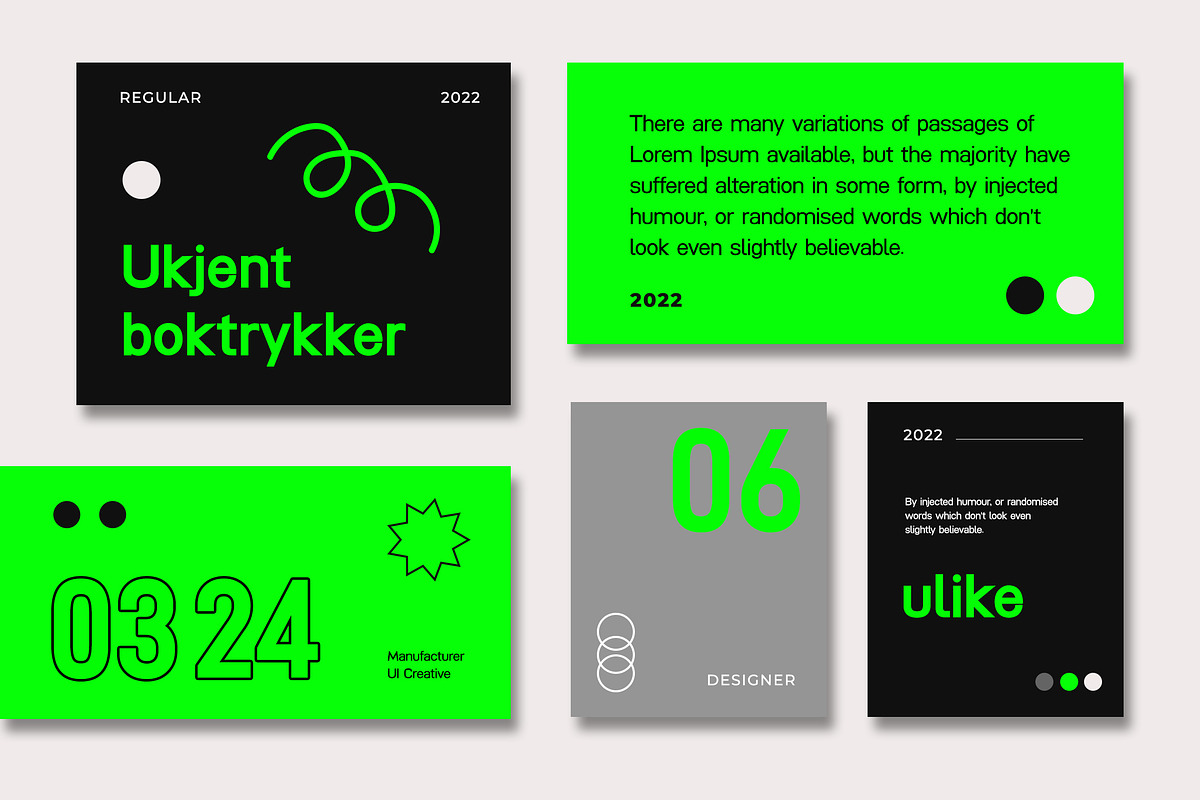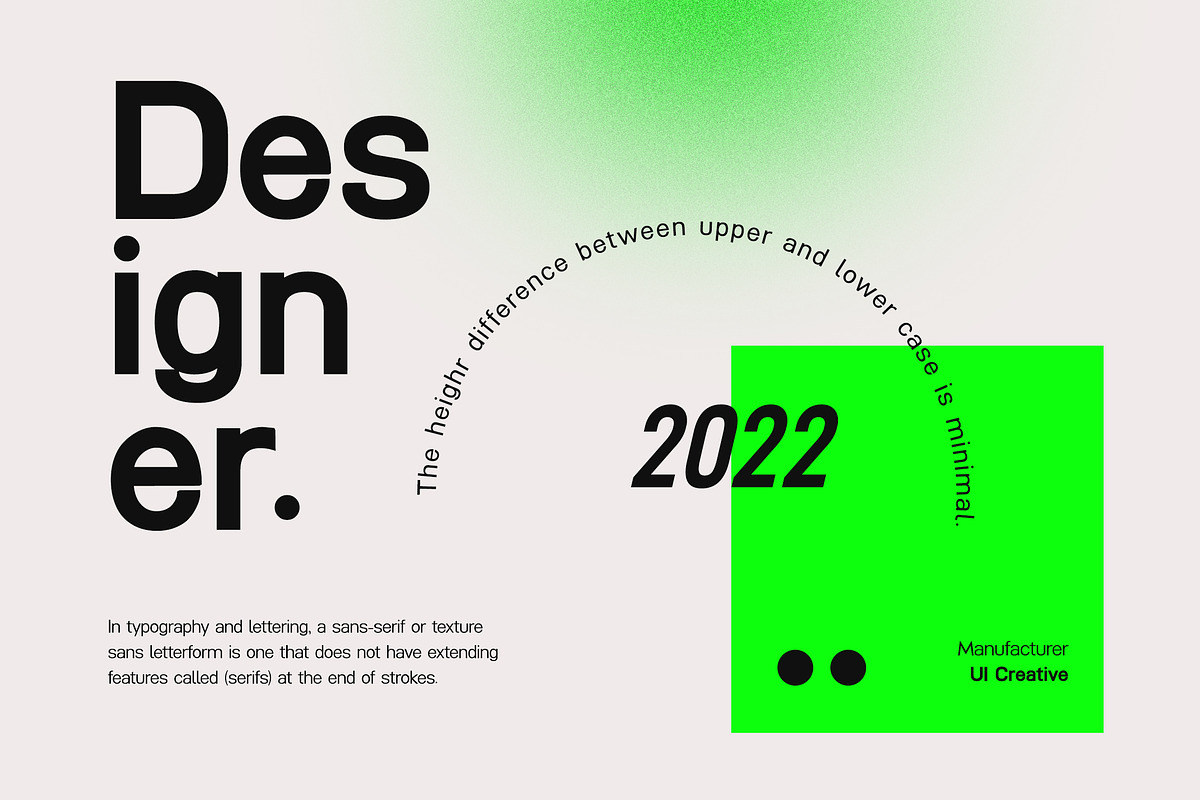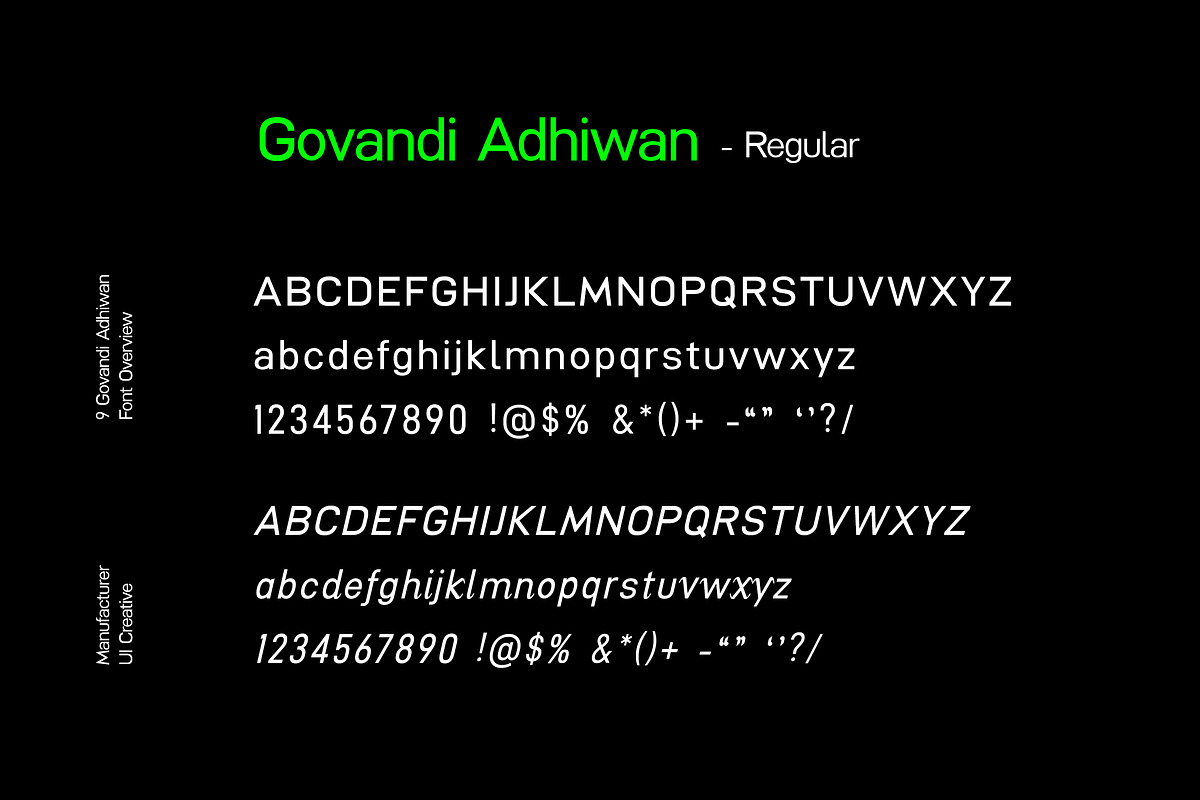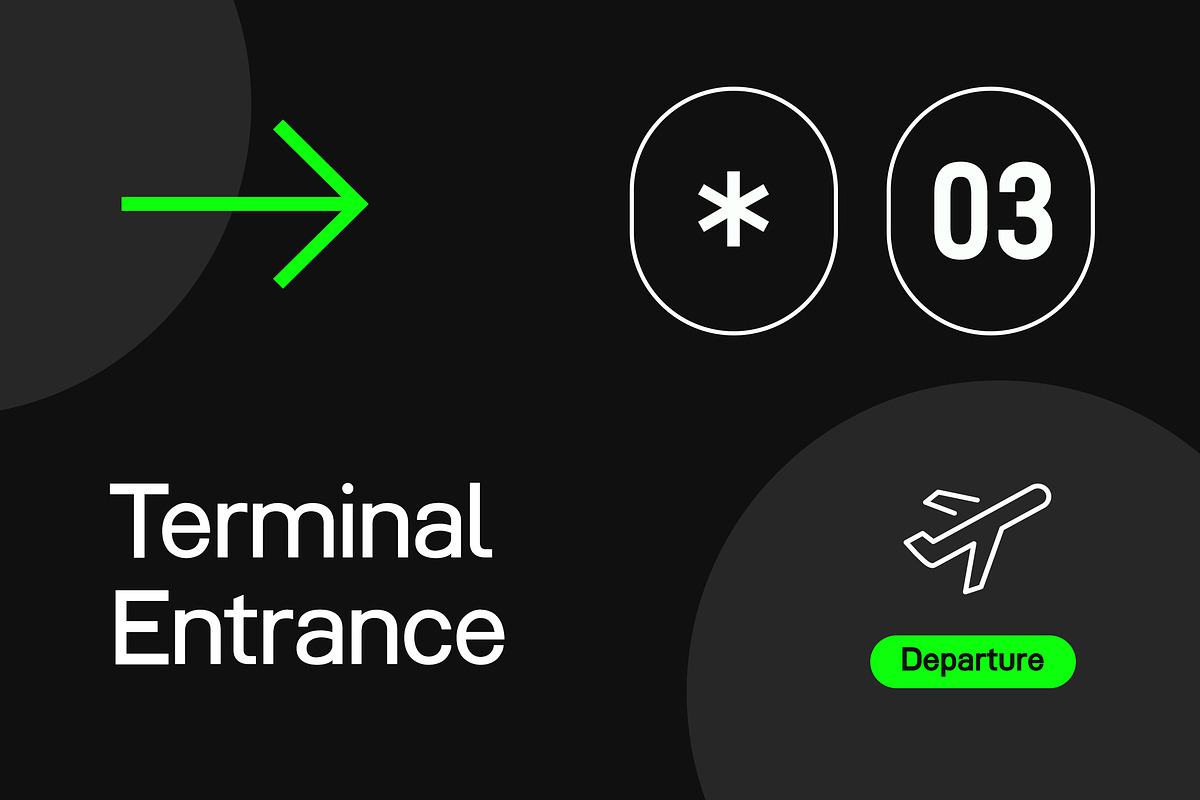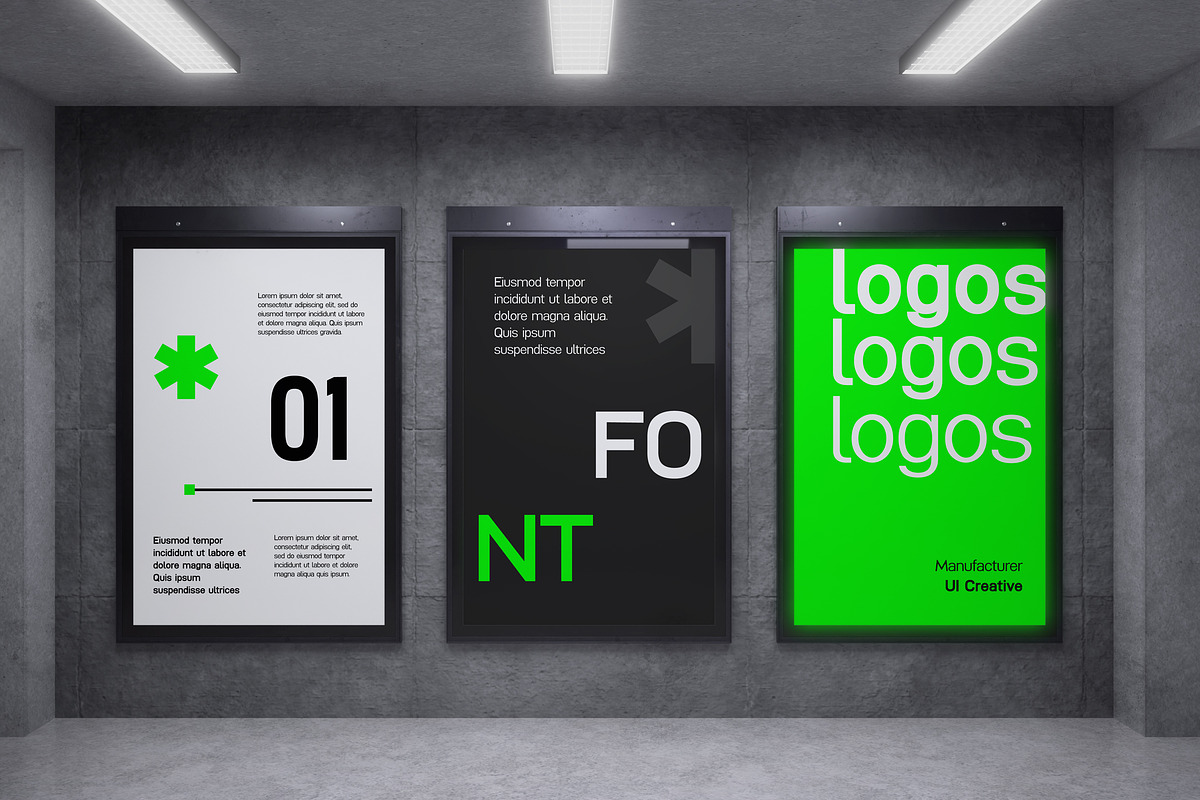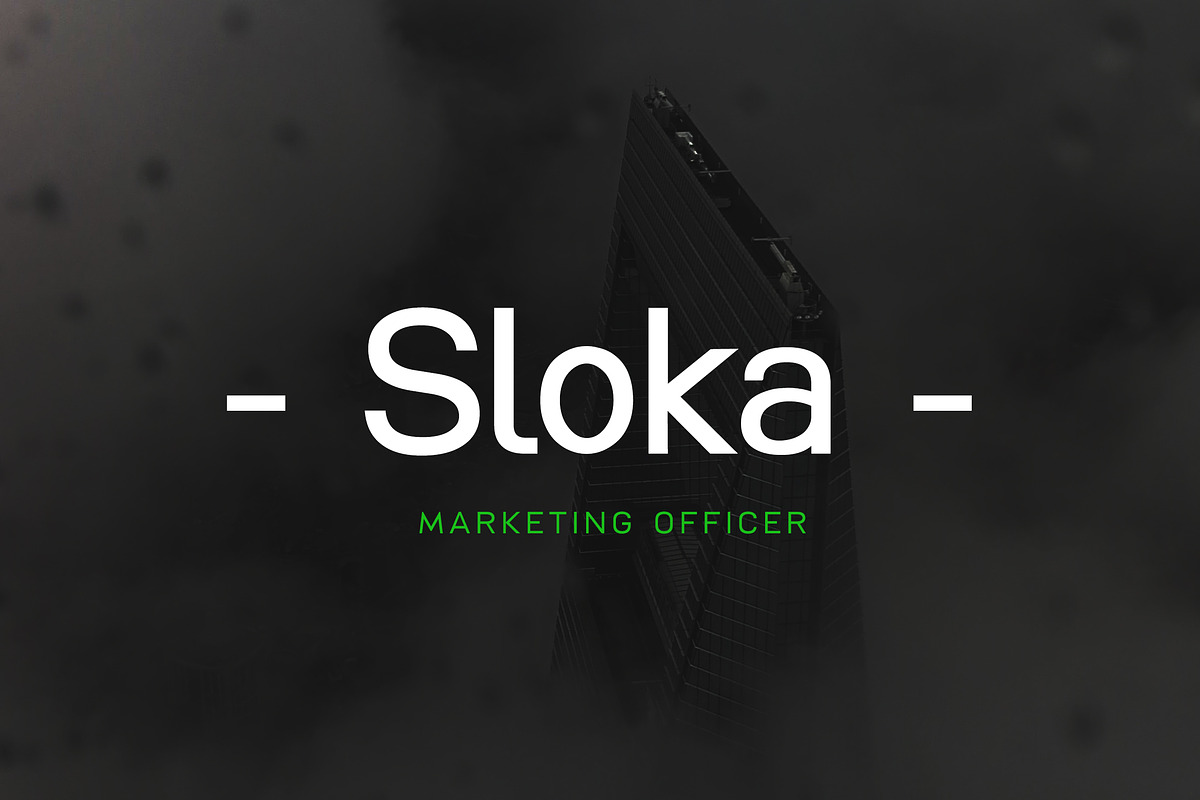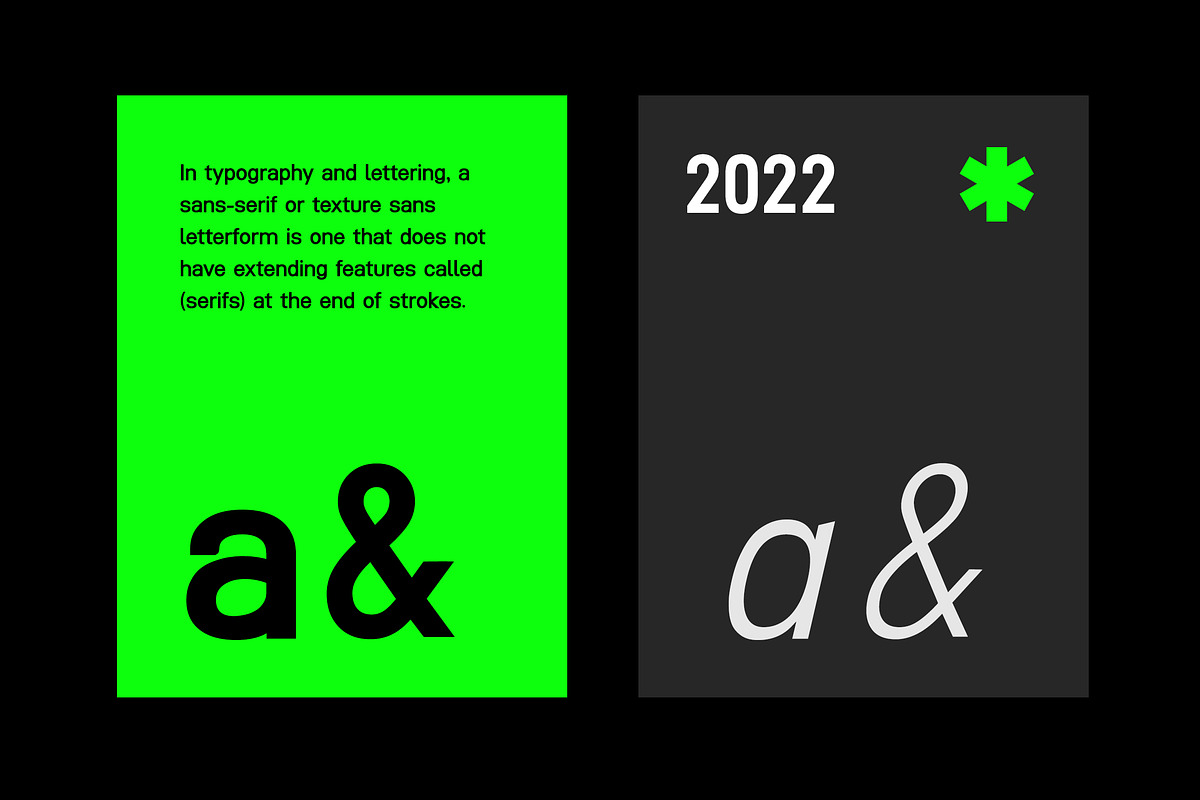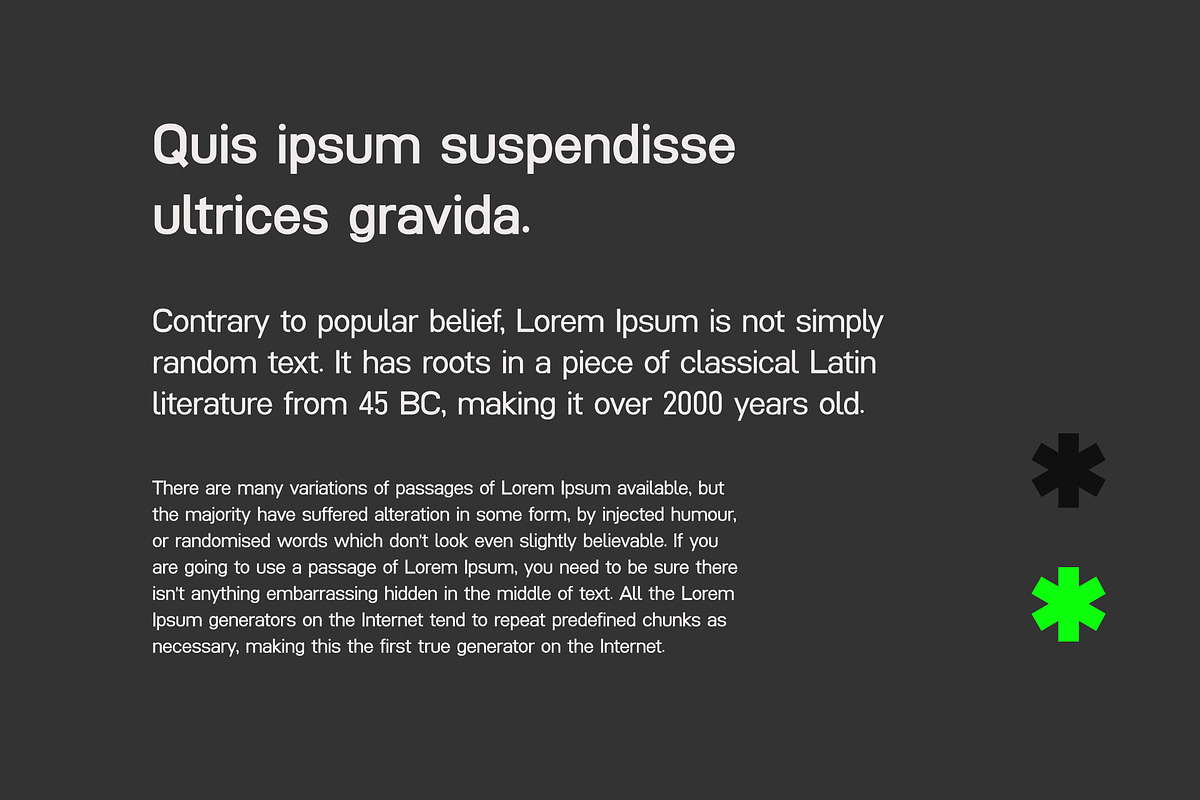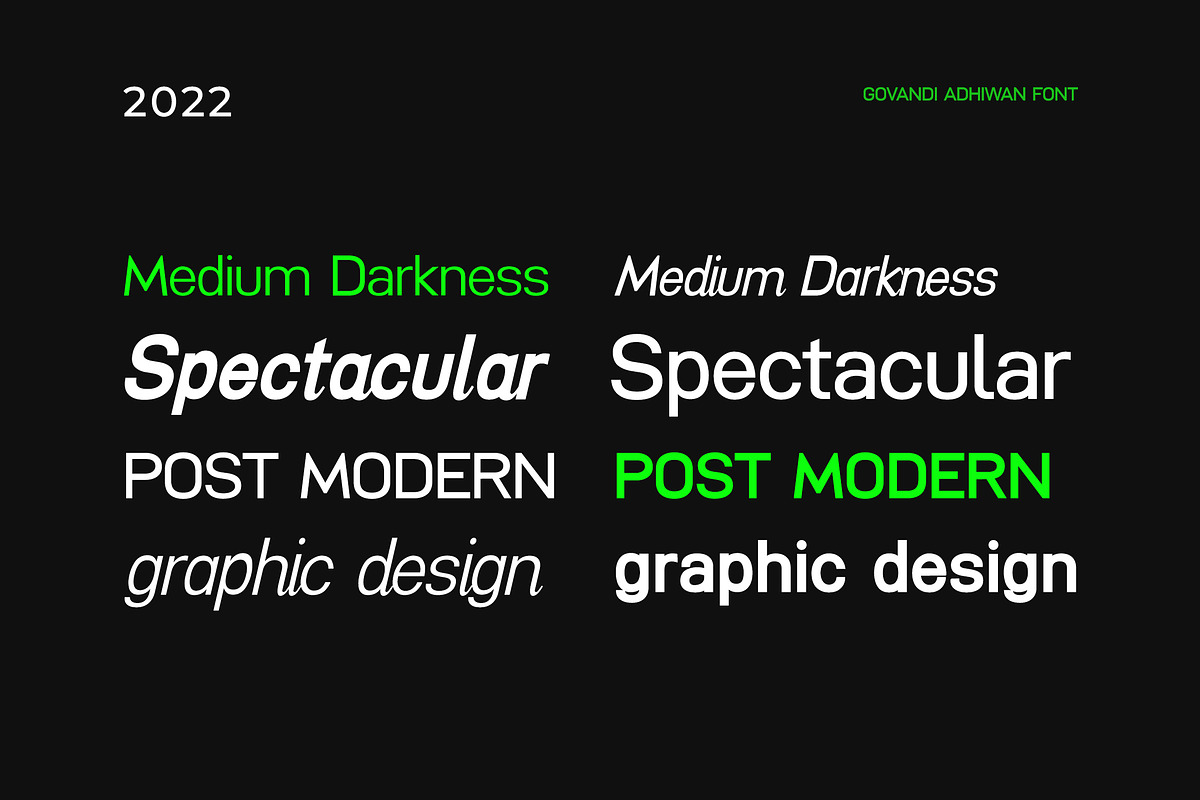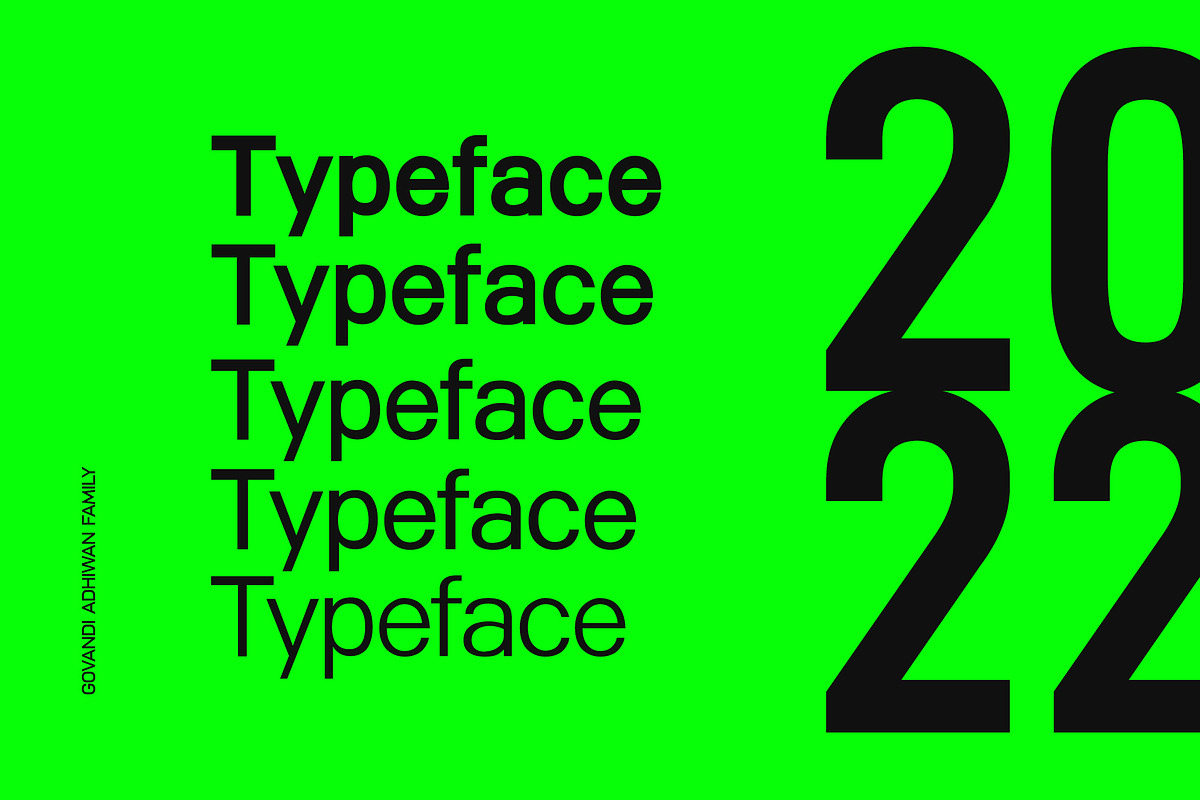
Govandi Adhiwan Sans Serif Family
Introducing our new product, the name is Govandi Adhiwan Sans Serif Font Family comes with 9 different weights. Modern Sans Serif font that feels beautiful classy, elegant, and modern. This font is perfectly suited for a wide variety of projects, such as signature, stationery, logo, wedding, typography quotes, magazine or book cover, website header, clothing, branding, packaging design, and more. Also for fashion-related branding or editorial design and displays both masculine and feminine qualities.
Designed with powerful OpenType features in mind. Perfectly suited for graphic design and any display use. It could easily work for web, signage, corporate as well as editorial design.